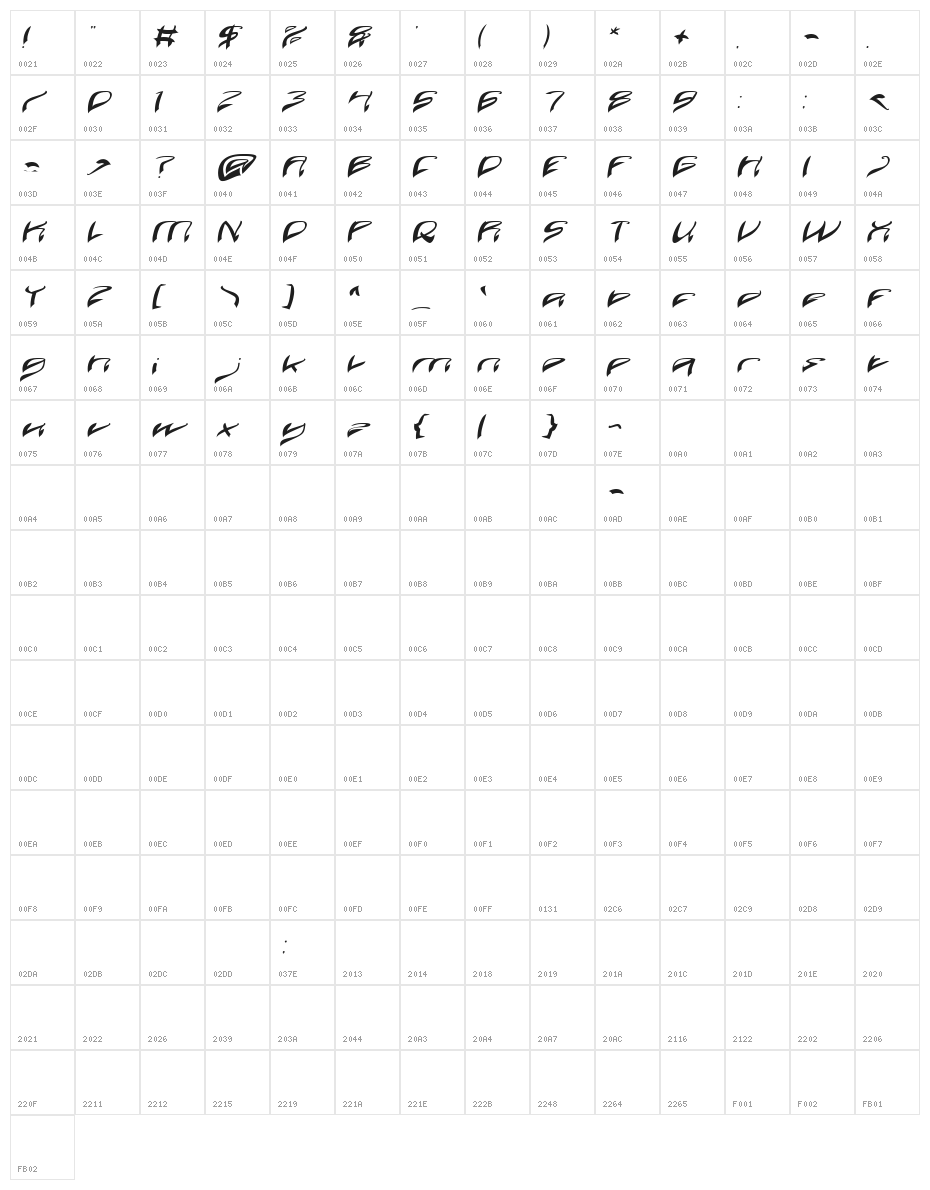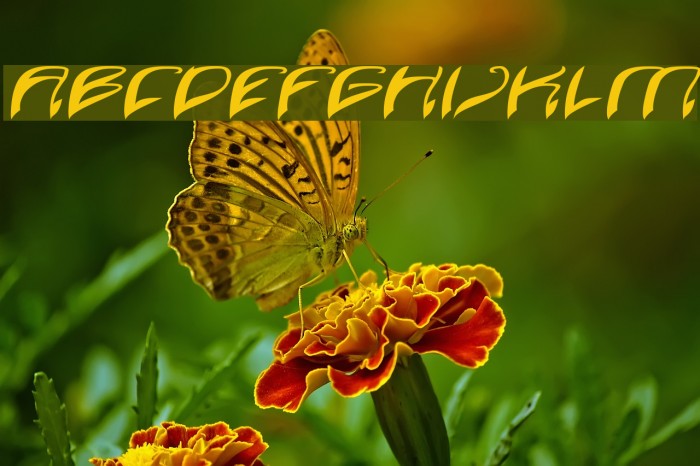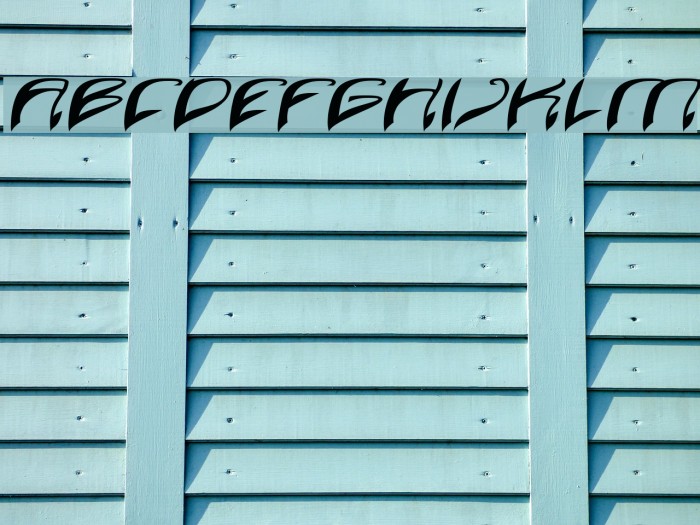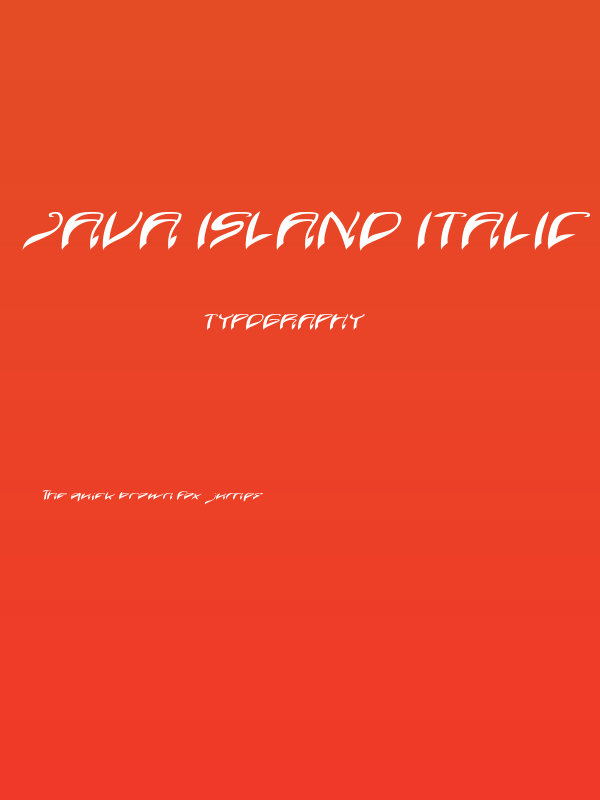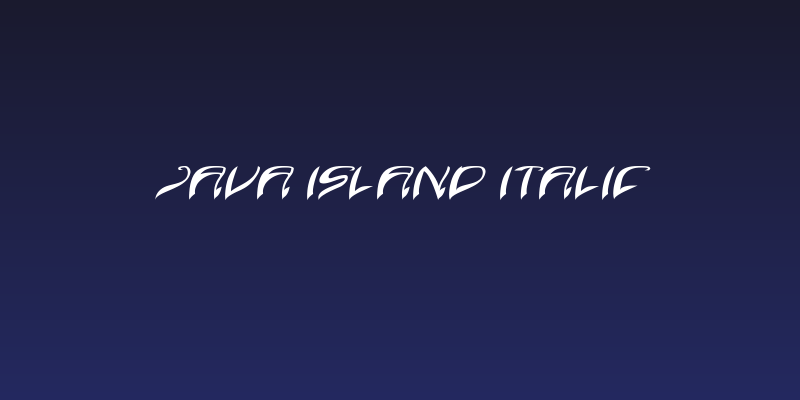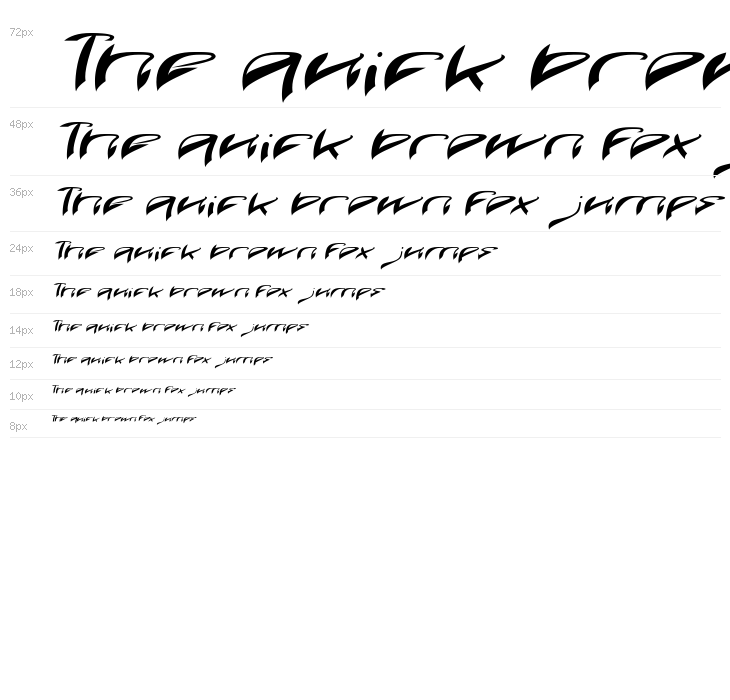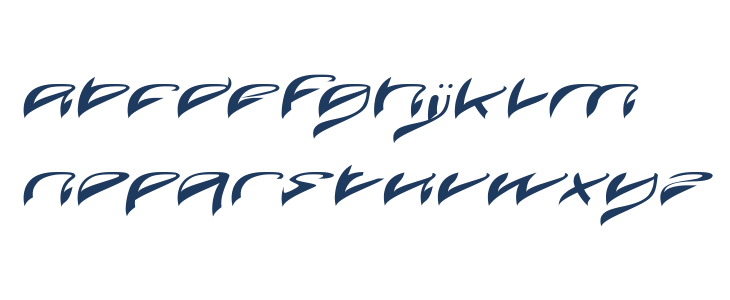
Java Island Italic Font
Java Island Italic Description
This font features a dynamic and fluid design, characterized by its italicized, brush-like strokes that convey a sense of motion and energy. The letters are bold and expressive, with sharp edges and varying thickness that create a striking visual impact. The uppercase and lowercase letters maintain a consistent style, with a slight slant that enhances the italic effect. Numbers and special characters are equally bold and maintain the same energetic style, making them stand out. The overall appearance is modern and artistic, suitable for creative and bold design projects.
| Use Case | Logos, Posters, Branding |
| Proposed Projects | Ideal for creative projects such as posters, logos, and branding materials that require a bold and artistic touch. |